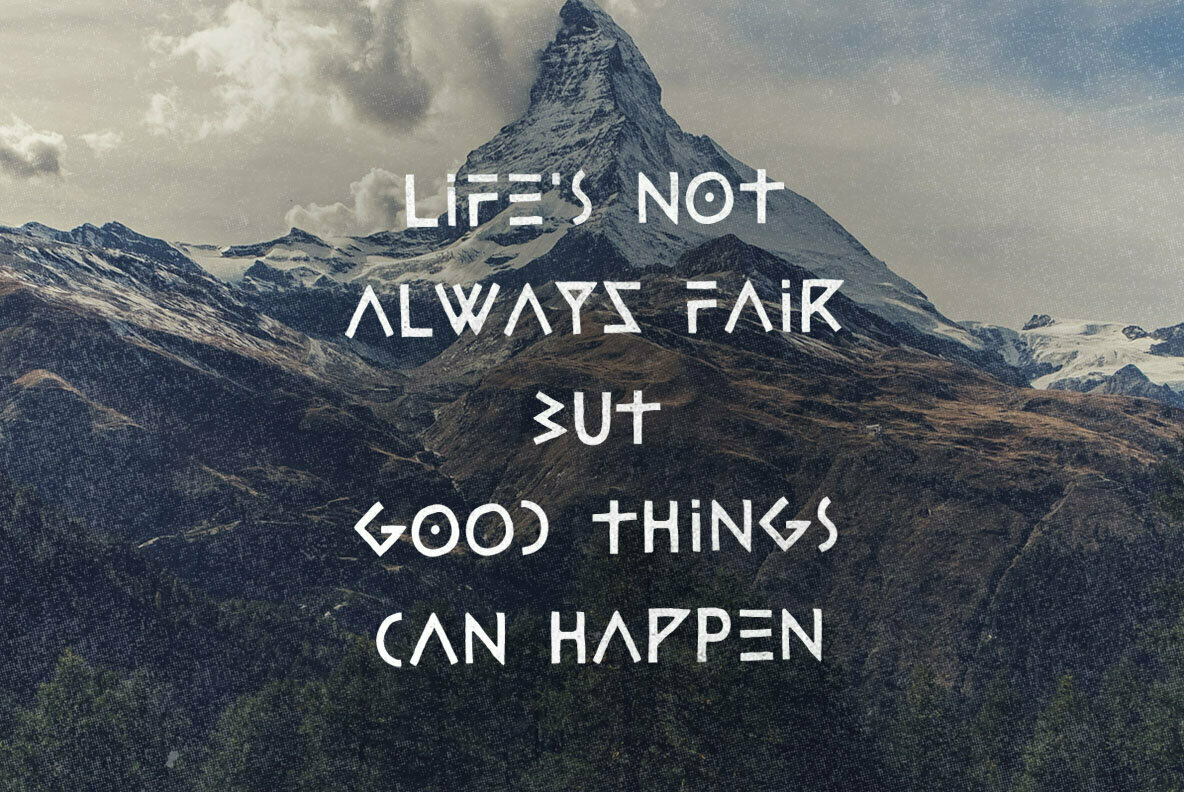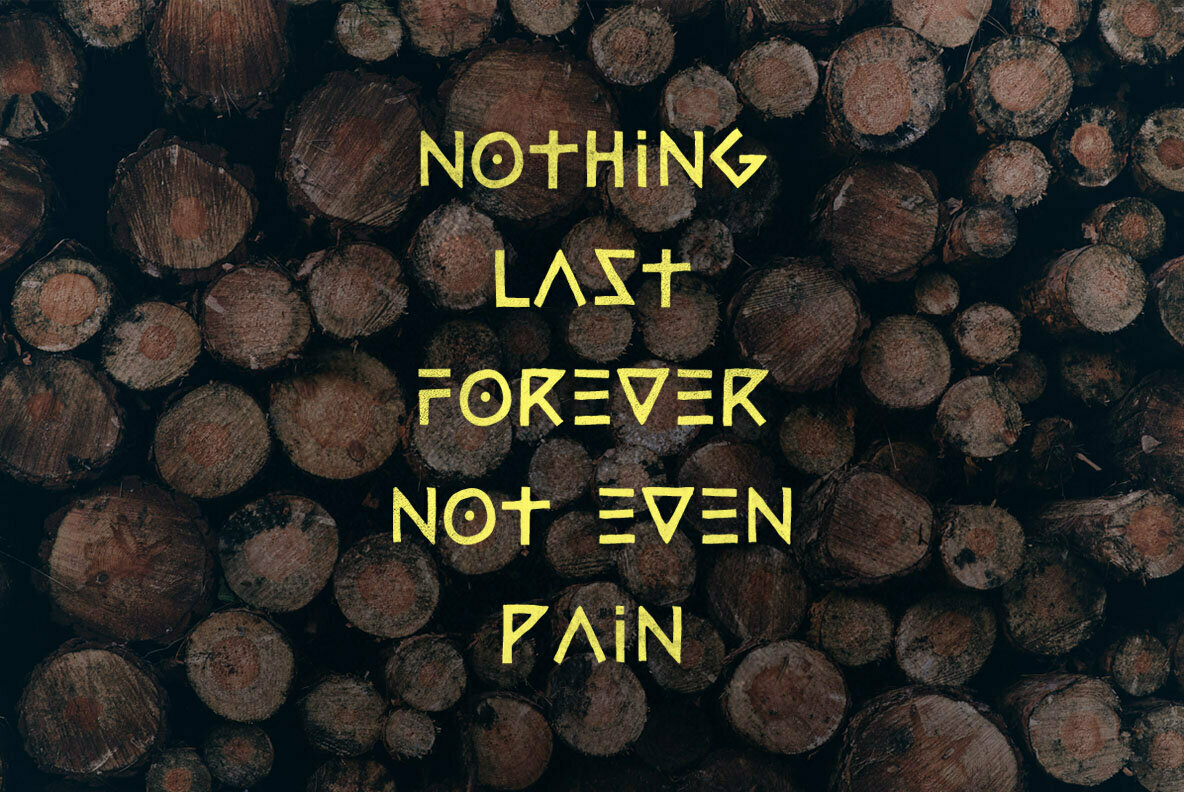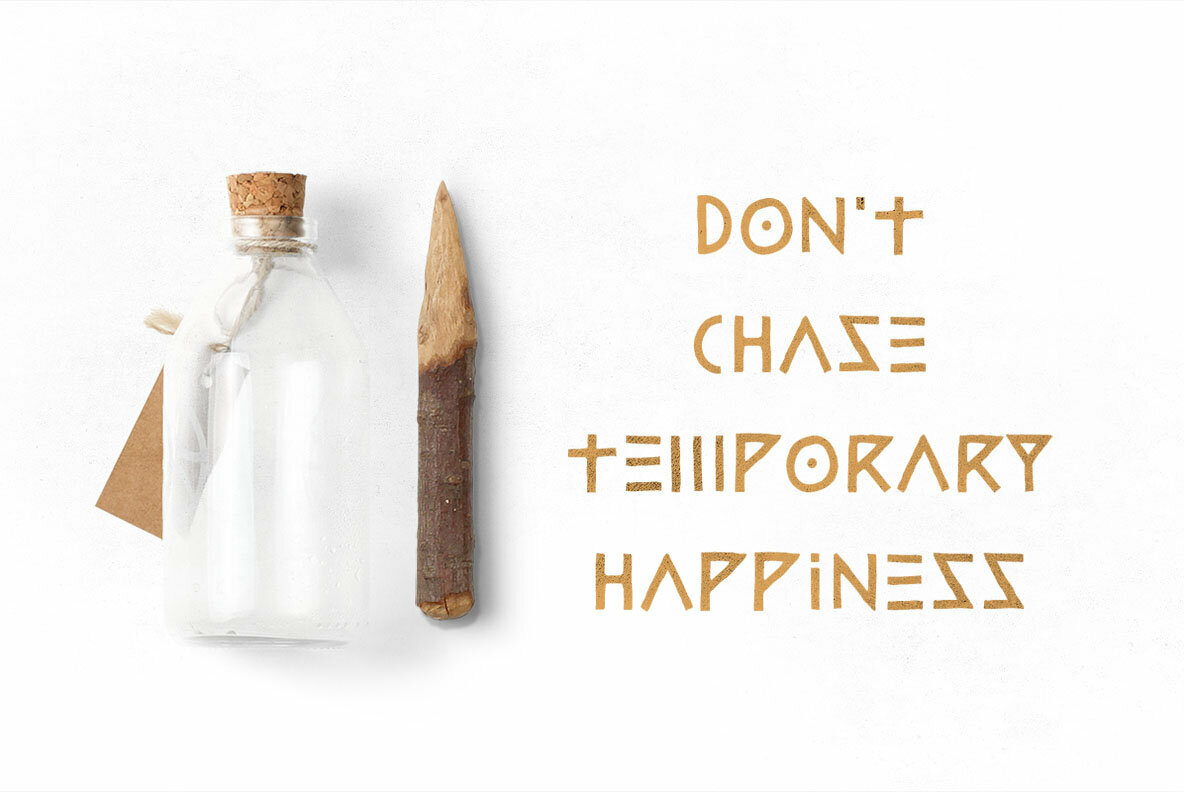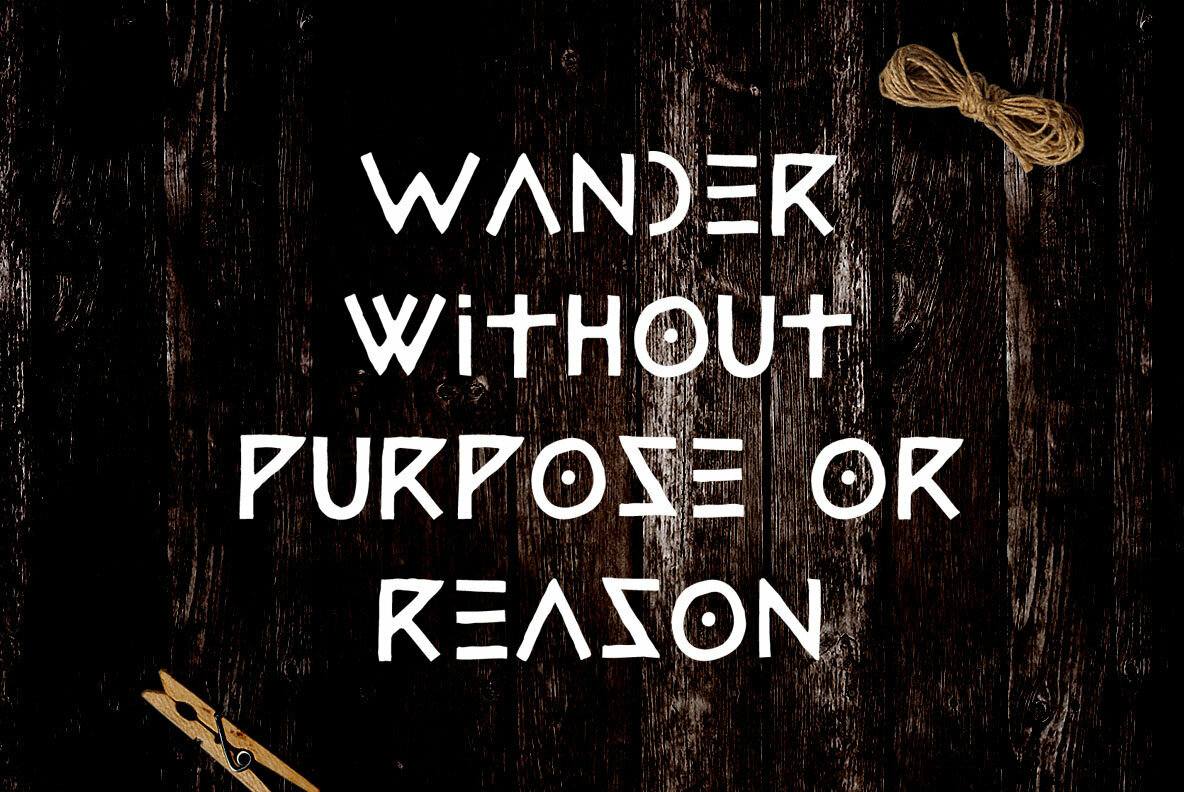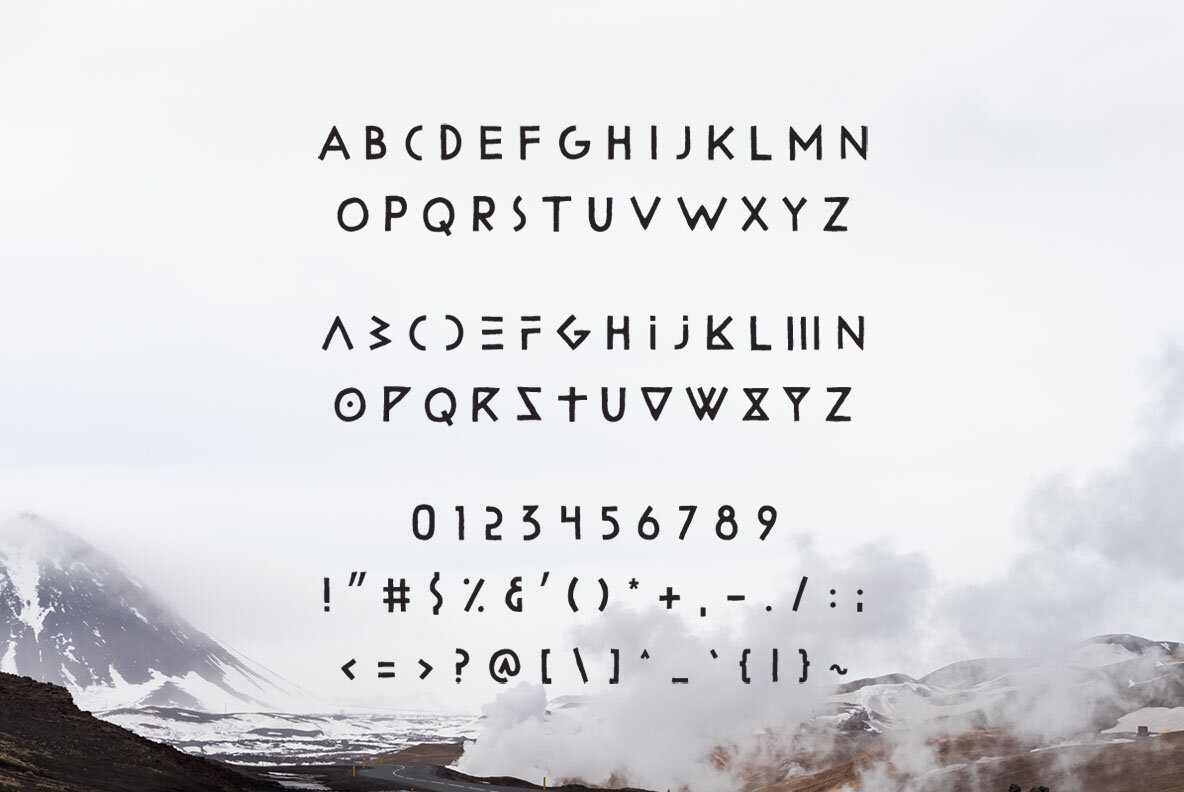
Evertype Font
Evertype
Every single letter in this font has been carefully crafted to perfection. It's perfect for use on many different projects, such as quotes and blog headers or anything that requires an elegant look with some personality!